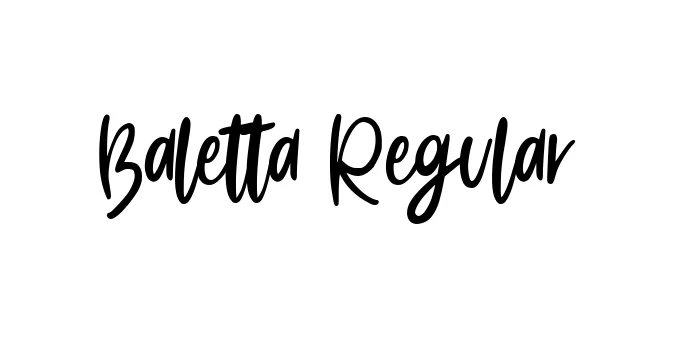
Baletta Regular
Baletta Regular is a sophisticated and modern script font that captures the essence of refined handwriting. Developed with a focus on fluid motion and natural letterforms, this typeface offers a perfect balance between artistic flair and professional readability. The font is characterized by its delicate strokes and elegant swashes, which provide a handcrafted feel that is both timeless and contemporary.
Since its release, Baletta Regular has become a favorite among graphic designers for high-end branding and editorial layouts. Its versatility allows it to shine in diverse applications, from luxury product packaging to intimate wedding stationery. The typeface includes a variety of ligatures that enhance the rhythmic flow of the text, ensuring that every word looks bespoke and thoughtfully composed.
Baletta Regular Best Uses
Creating elegant invitations, envelopes, and place cards with a personal touch.
Developing high-end visual identities for fashion, beauty, and jewelry brands.
Designing eye-catching quotes and artistic overlays for Instagram and Pinterest.
Adding a professional and stylish watermark to creative portfolios.
Crafting beautiful headlines for lifestyle and fashion magazines.